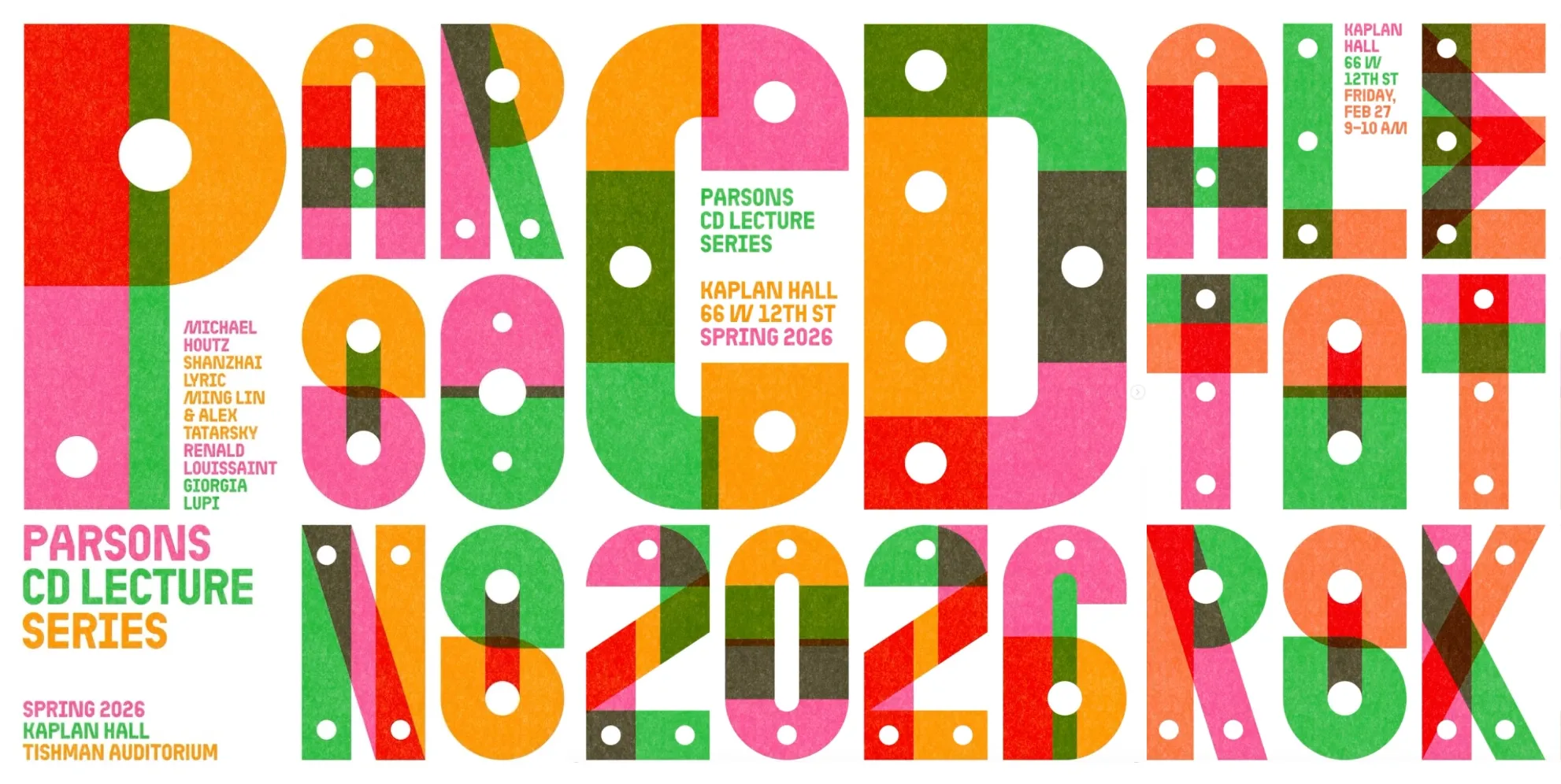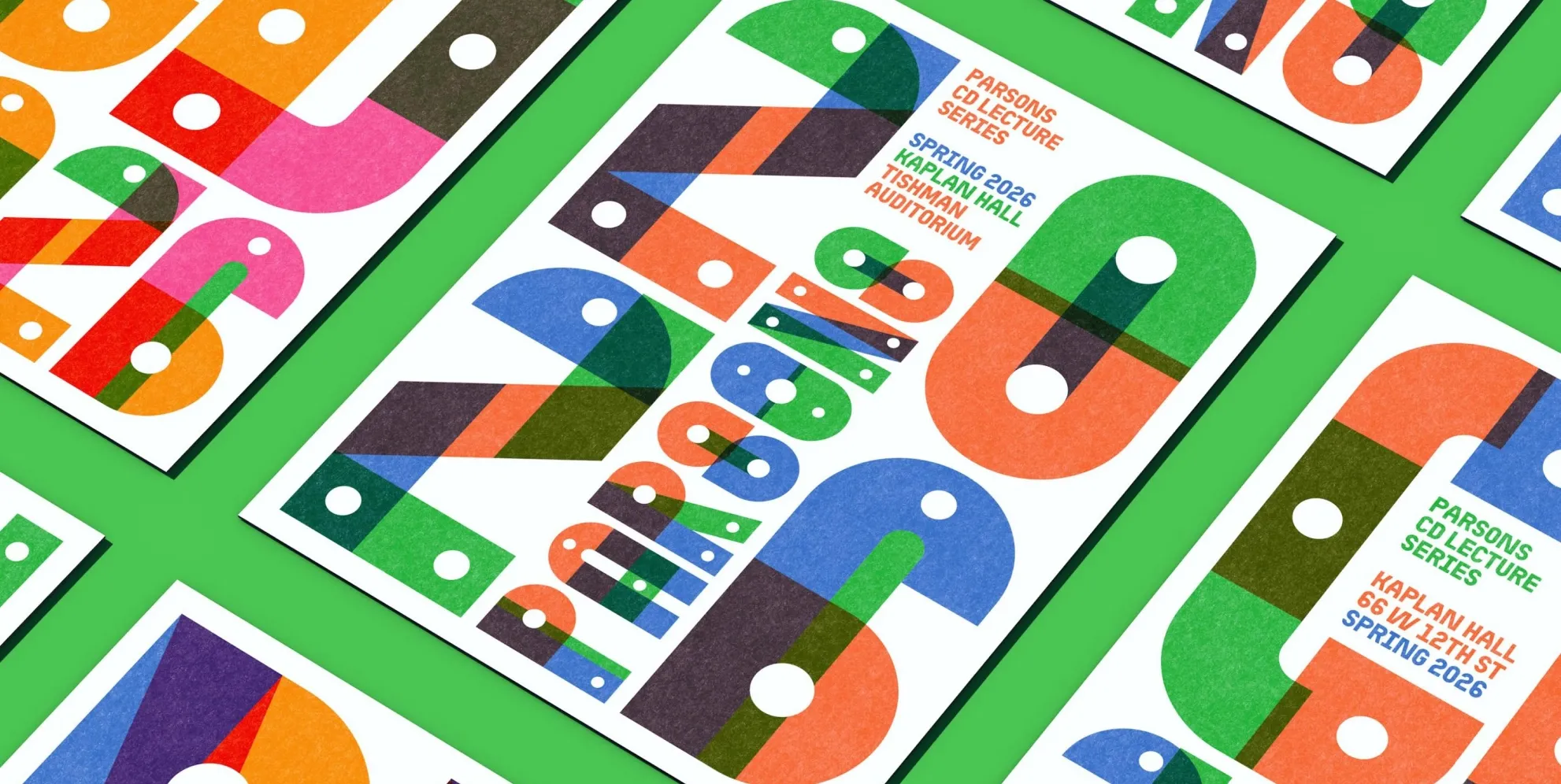
CoFo Kabeltouw Variable
CoFo Kabeltouw
Reduced character set
Solid 0, Stencil 20, Stencil 38, Stencil 56
About CoFo Kabeltouw
CoFo Kabeltouw is a modular typeface that is not afraid of serious challenges. Its industrial look is based on modern maritime transportation: containers, cargo cranes, curved metal pipes, signal colors, stencil typography, and pictograms. With a limited number of modules, this typeface combines strict mechanical logic with the warmth of manually painted letters. The name of the typeface, Kabeltouw, comes from a nautical measure of length equal to 1/10 of a nautical mile and a braided cable of this length. CoFo Kabeltouw has a recognizable character in all-caps settings, as well as a generous choice of alternates (so you won’t even feel the absence of lowercase letters). The variable version of the font gives you the power to adjust its “stencilness” to match it to the scale and features of your design. CoFo Kabeltouw brings the material feel of tactile typography into the digital realm, as a dashing frontman in branding and advertising as well as high-quality building blocks for complex typographic systems.